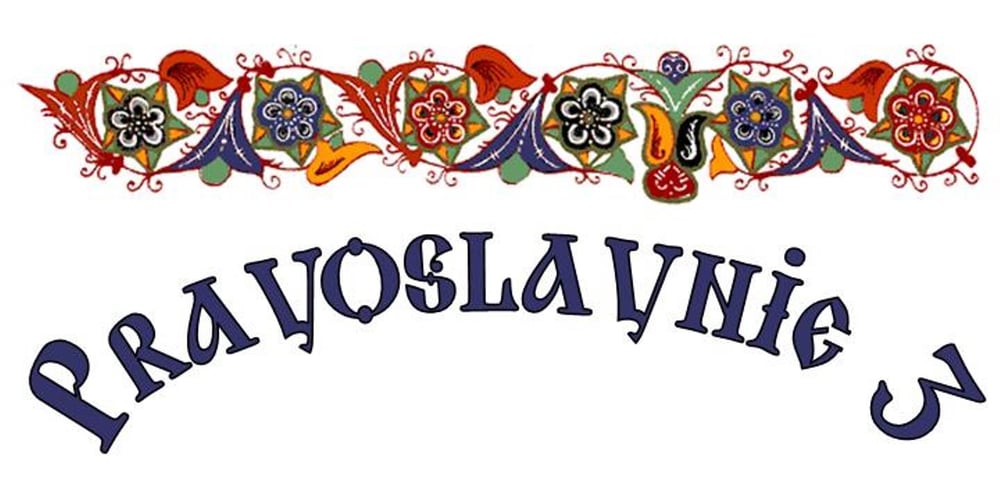
Pravoslavnie
Pravoslavnie font
Pravoslavnie Font Family was designed by Brett T. Johnson and published by Simeon out West. Pravoslavnie contains 2 styles and family package options. This is the first of several Eastern fonts I have created and is the prize of the collection. The Pravoslavnie font is highly decorative, with a more complicated letter ‘a’ and a series of flourishes substituting for punctuation. Like its sister font, Pravoslavnie 3 is highly decorative. It differs from the first version of this font, as it has a less decorative ‘a,’ full punctuation marks, and less ornate number forms.